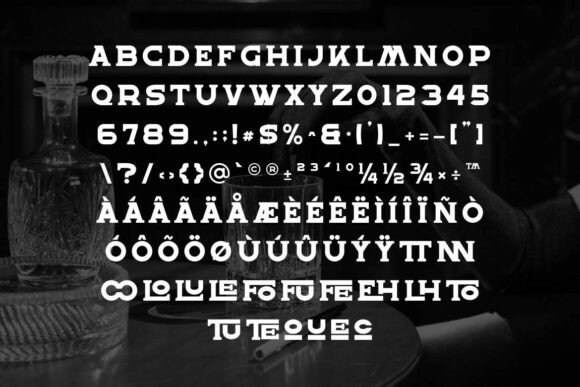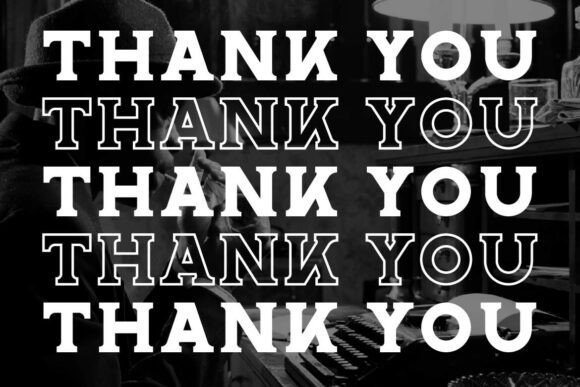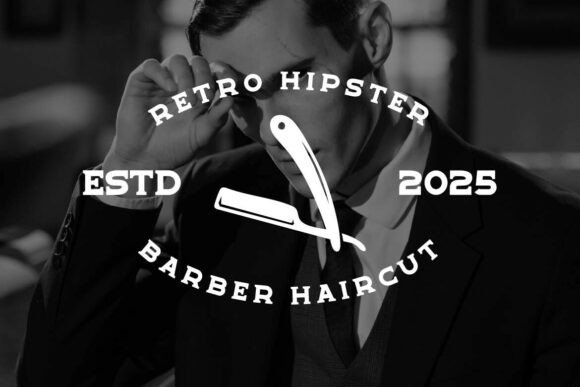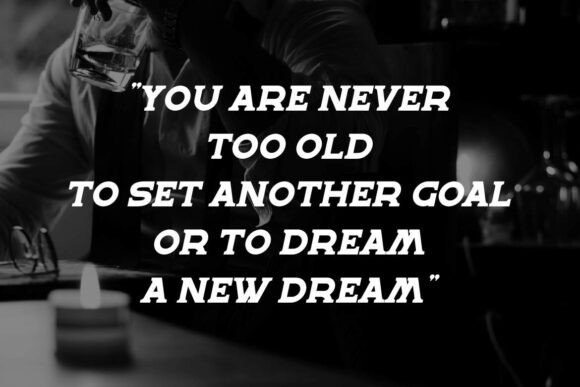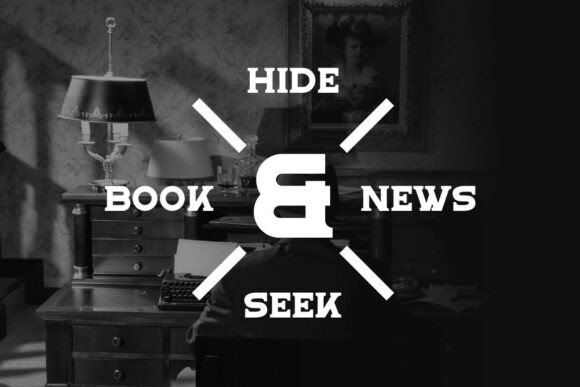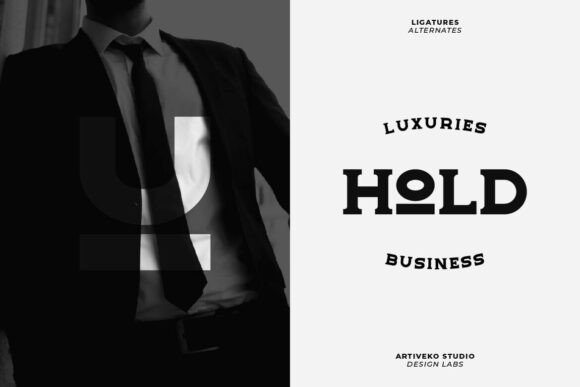
Discover the Timeless Charm of Bertton Font: A Classic Serif Inspired by Vintage Typography
In the world of typography, few fonts manage to evoke the essence of vintage charm and traditional craftsmanship as effectively as Bertton. This classic serif font is a masterful blend of bold serifs, balanced proportions, and subtle retro detailing, making it an ideal choice for designers looking to infuse their projects with an authentic old-world feel. Whether you’re working on branding, packaging, editorial headlines, signage, posters, or café or bar identities, Bertton is a versatile and captivating font that delivers character and nostalgia in every letter.
The Inspiration Behind Bertton
Bertton’s design is deeply rooted in the rich history of typography and the art of traditional craftsmanship. Its creator drew inspiration from vintage typography, meticulously crafting each letterform to reflect the elegance and sophistication of a bygone era. The result is a font that exudes warmth, character, and a sense of history, making it perfect for projects that require a touch of nostalgia and authenticity.
Key Features of Bertton Font
So, what makes Bertton such a unique and compelling font? Here are some of its key features:
- Bold Serifs: Bertton’s serifs are bold and pronounced, giving the font its distinctive character and charm. These serifs add a level of sophistication and elegance to any design, making it perfect for high-end branding and editorial projects.
- Balanced Proportions: The font’s proportions are carefully balanced to ensure that each letterform is harmonious and visually appealing. This balance contributes to the font’s readability and versatility, making it suitable for a wide range of applications.
- Subtle Retro Detailing: Bertton’s retro detailing is subtle yet effective, adding a touch of vintage charm to each letterform. These details evoke a sense of nostalgia and authenticity, making the font perfect for projects that require a classic, timeless feel.
Use Cases for Bertton Font
Bertton’s versatility and charm make it an excellent choice for a variety of design projects. Here are some of the ideal use cases for this captivating font:
- Branding: Bertton is perfect for branding projects that require a touch of sophistication and elegance. Its bold serifs and classic charm make it an excellent choice for logos, letterheads, and business cards.
- Packaging: The font’s vintage charm and nostalgic feel make it an excellent choice for packaging design. Use Bertton to add a touch of authenticity and character to your product packaging.
- Editorial Headlines: Bertton’s bold serifs and classic proportions make it perfect for editorial headlines. Use it to add a touch of sophistication and elegance to your magazine or newspaper headlines.
- Signage: The font’s bold and pronounced serifs make it an excellent choice for signage design. Use Bertton to create eye-catching signs that command attention.
- Posters: Bertton’s vintage charm and nostalgic feel make it perfect for poster design. Use it to create captivating posters that evoke a sense of nostalgia and authenticity.
- Café or Bar Identities: The font’s classic charm and sophistication make it an excellent choice for café or bar identities. Use Bertton to create a warm and inviting atmosphere for your customers.
Bertton font is a timeless and captivating serif font that brings an authentic old-world feel to your designs. Its bold serifs, balanced proportions, and subtle retro detailing make it perfect for a wide range of applications, from branding and packaging to editorial headlines and signage. Whether you’re a designer or a crafter, Bertton is an excellent choice for anyone looking to add a touch of vintage charm and nostalgia to their projects. So why not give Bertton a try and discover the timeless charm of this classic serif font for yourself?